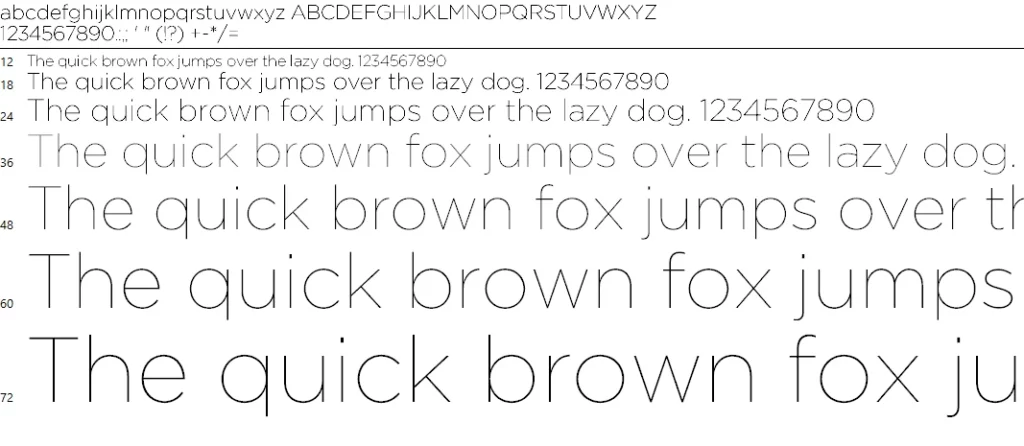
If you want a refined and sophisticated touch for your next design project, look no further than the Gotham Thin font. Created by Tobias Frere-Jones in 2000 and released two years later by Hoefler & Co., Gotham Thin is the lightest weight in the Gotham family of sans serif fonts. It draws inspiration from the architectural signage of New York City, resulting in a clean and modern design that is versatile for various purposes.
Gotham Thin Characteristics
Gotham Thin has a minimalist and uniform design with consistent stroke widths. Some letters have rounded corners that soften their appearance. Gotham Thin has a balanced and harmonious look with a high x-height and low contrast between horizontal and vertical strokes. Its subtle features, like the curved tail of the Q, the angled crossbar of the G, and the square dot of I, add character to the text.
Where to Use Gotham Thin
Gotham Thin is suitable for various purposes that require a refined and sophisticated touch. It can be used for logos, headlines, magazines, books, websites, posters, flyers, and banners. Pairing it with other fonts that complement its style, such as serif or display, can add depth to your design. Neutral and pastel colors match its lightness and elegance.
DesignerTobias Frere-Jones
Similar Fonts to Gotham Thin
Eng Gothic Thin, Gothic 57 Thin, and Thin are some fonts that share similarities with Gotham Thin. Eng Gothic Thin is a geometric sans serif font with a futuristic and industrial look, while Gothic 57 Thin has a classic and timeless style. Thin, created by Dharma Type, has a minimalist and elegant style that is delicate and graceful.